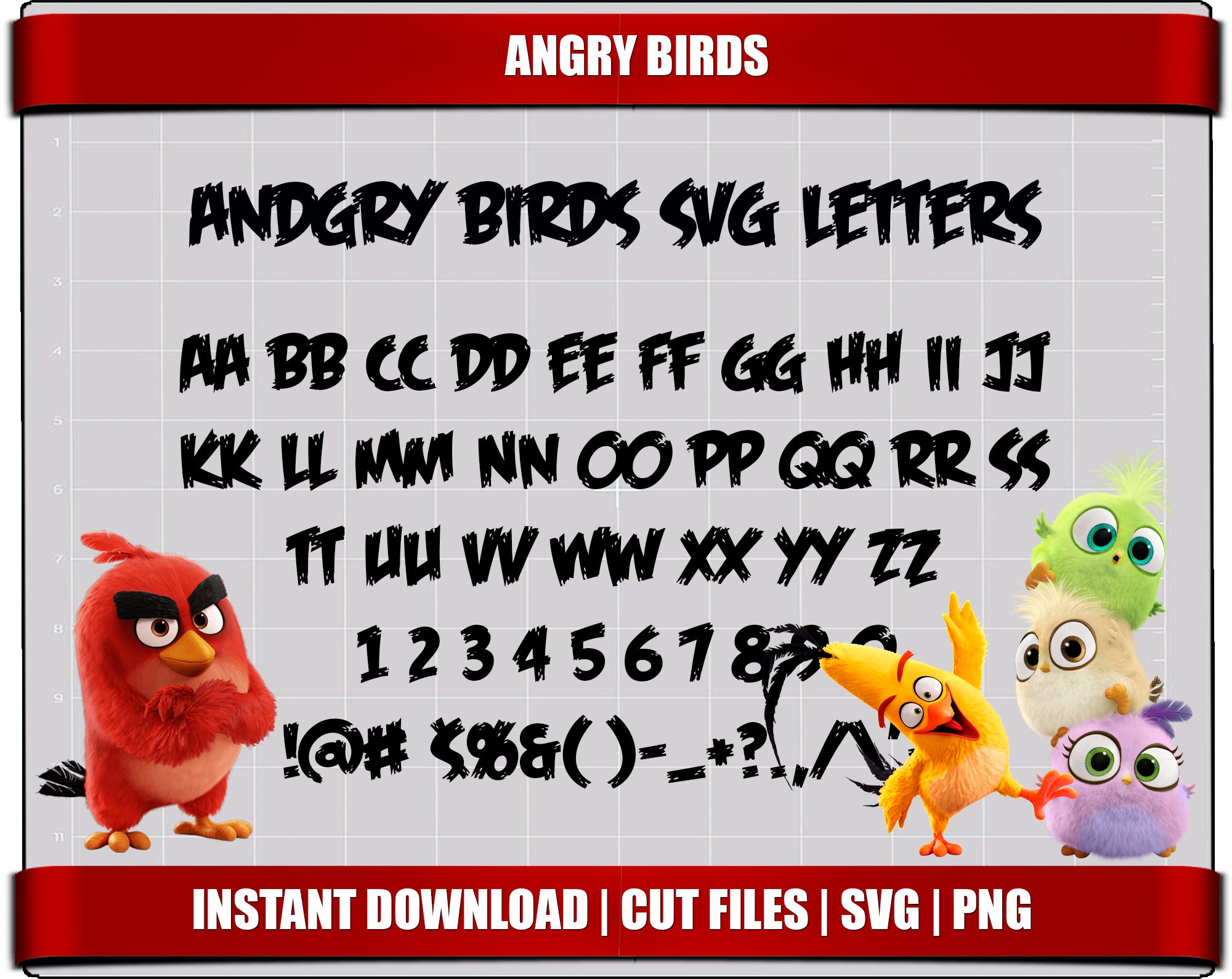
Angry Birds Font
Angry Birds Font - Download free angry birds fonts. Web the angry birds logo features an angry bird head and the logotype in comic style lettering, which resembles a font called “feast of flesh” designed by nate piekos in. You can generate your own custom designs based on the angry birds movies or the original video game by rovio. Enter your text, select a font, choose a font size, and pick your favorite. Web download the custom font for angry birds, the popular mobile game, from dafont.com. See the preview, size, comments and other details of the font. Web use our free angry birds font generator tool below to create your own custom design logo or image.
Web use our free angry birds font generator tool below to create your own custom design logo or image. Enter your text, select a font, choose a font size, and pick your favorite. Web the angry birds logo features an angry bird head and the logotype in comic style lettering, which resembles a font called “feast of flesh” designed by nate piekos in. Download free angry birds fonts. See the preview, size, comments and other details of the font. Web download the custom font for angry birds, the popular mobile game, from dafont.com. You can generate your own custom designs based on the angry birds movies or the original video game by rovio.
Enter your text, select a font, choose a font size, and pick your favorite. You can generate your own custom designs based on the angry birds movies or the original video game by rovio. See the preview, size, comments and other details of the font. Web download the custom font for angry birds, the popular mobile game, from dafont.com. Web the angry birds logo features an angry bird head and the logotype in comic style lettering, which resembles a font called “feast of flesh” designed by nate piekos in. Download free angry birds fonts. Web use our free angry birds font generator tool below to create your own custom design logo or image.
Download free angry birds fonts. See the preview, size, comments and other details of the font. Web the angry birds logo features an angry bird head and the logotype in comic style lettering, which resembles a font called “feast of flesh” designed by nate piekos in. Enter your text, select a font, choose a font size, and pick your favorite..
Web the angry birds logo features an angry bird head and the logotype in comic style lettering, which resembles a font called “feast of flesh” designed by nate piekos in. Web download the custom font for angry birds, the popular mobile game, from dafont.com. You can generate your own custom designs based on the angry birds movies or the original.
Enter your text, select a font, choose a font size, and pick your favorite. Download free angry birds fonts. Web use our free angry birds font generator tool below to create your own custom design logo or image. You can generate your own custom designs based on the angry birds movies or the original video game by rovio. See the.
See the preview, size, comments and other details of the font. Enter your text, select a font, choose a font size, and pick your favorite. Web use our free angry birds font generator tool below to create your own custom design logo or image. Web download the custom font for angry birds, the popular mobile game, from dafont.com. Web the.
Web the angry birds logo features an angry bird head and the logotype in comic style lettering, which resembles a font called “feast of flesh” designed by nate piekos in. Download free angry birds fonts. Web download the custom font for angry birds, the popular mobile game, from dafont.com. See the preview, size, comments and other details of the font..
Enter your text, select a font, choose a font size, and pick your favorite. Web use our free angry birds font generator tool below to create your own custom design logo or image. See the preview, size, comments and other details of the font. You can generate your own custom designs based on the angry birds movies or the original.
You can generate your own custom designs based on the angry birds movies or the original video game by rovio. Web use our free angry birds font generator tool below to create your own custom design logo or image. Web the angry birds logo features an angry bird head and the logotype in comic style lettering, which resembles a font.
Enter your text, select a font, choose a font size, and pick your favorite. Web download the custom font for angry birds, the popular mobile game, from dafont.com. Web the angry birds logo features an angry bird head and the logotype in comic style lettering, which resembles a font called “feast of flesh” designed by nate piekos in. Web use.
Web the angry birds logo features an angry bird head and the logotype in comic style lettering, which resembles a font called “feast of flesh” designed by nate piekos in. You can generate your own custom designs based on the angry birds movies or the original video game by rovio. See the preview, size, comments and other details of the.
Web download the custom font for angry birds, the popular mobile game, from dafont.com. See the preview, size, comments and other details of the font. Enter your text, select a font, choose a font size, and pick your favorite. You can generate your own custom designs based on the angry birds movies or the original video game by rovio.